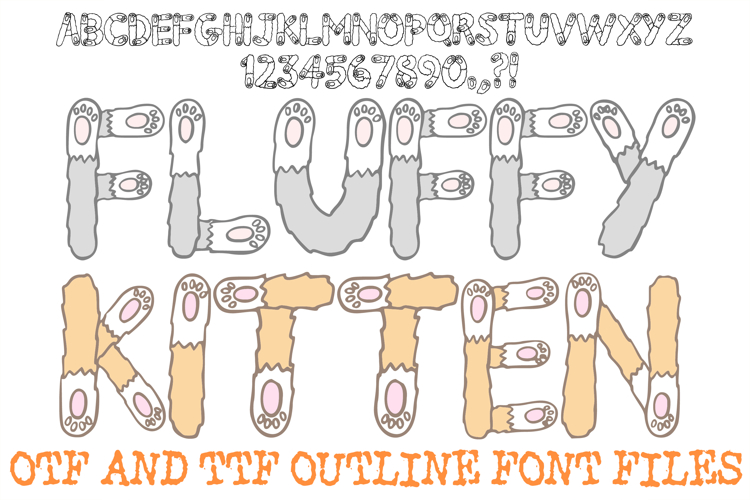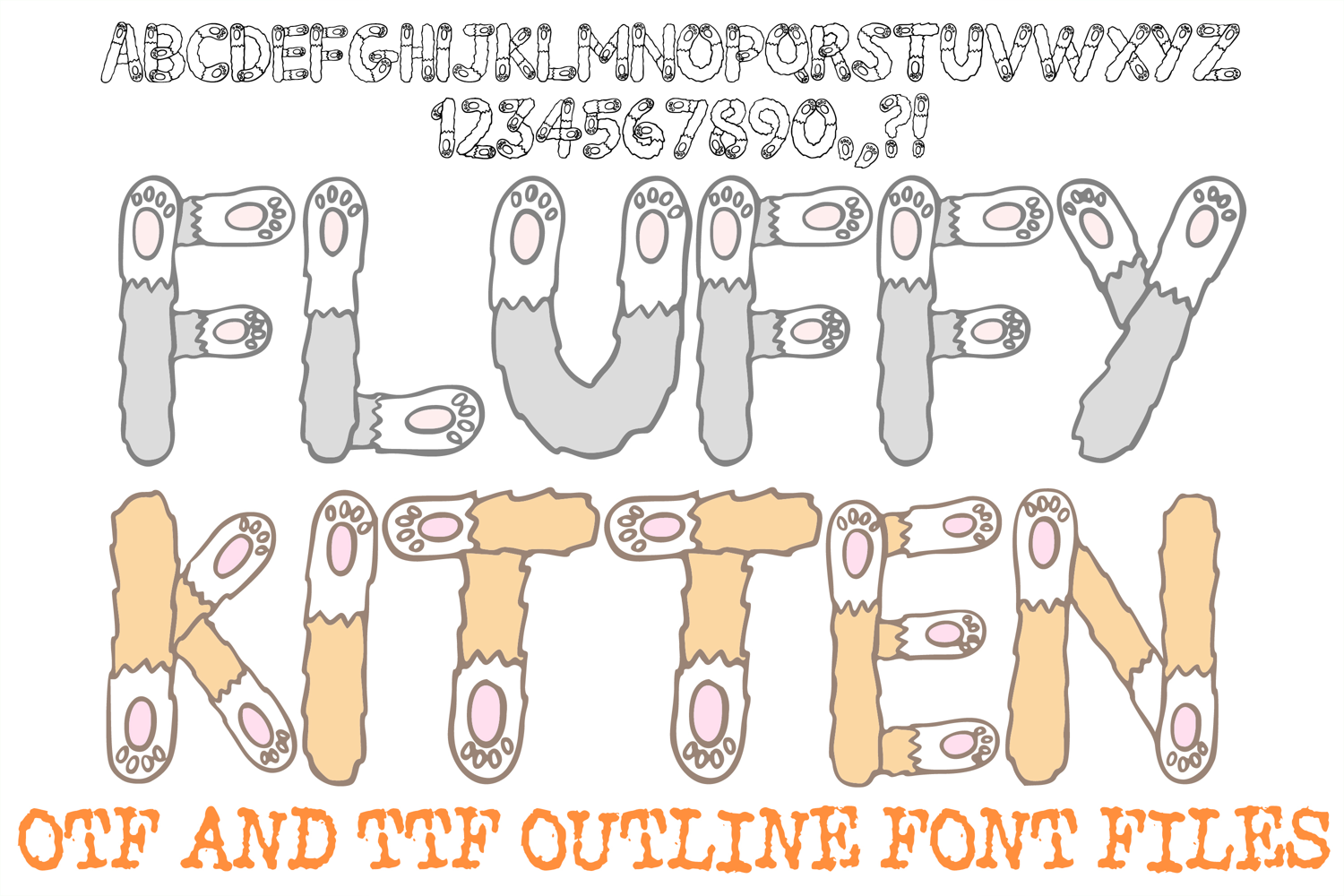
Fluffy Kitten Alphabet Lettering Font Paws ABC OTF TTF
Infuse your creative projects with an abundance of cozy pet charm and absolute sweetness using the Fluffy Kitten Font. This exceptionally cute, hand-drawn display typeface features thick, rounded letterforms uniquely shaped out of fuzzy cat legs and soft paws. The defining highlights of this design are the delicate tufts of fur texture along the edges and the tiny, squishy pink "toe beans" seamlessly integrated into each uppercase letter, number, and punctuation mark. It stands as the ultimate font choice for any layout that needs a warm, playful, and pet-loving aesthetic.
Ideal For Creative Merch & DIY
Custom Merchandise: Design adorable typography for cat lovers' t-shirts, cozy animal hoodies, and canvas tote bags.
Die-Cut Stickers: Create irresistible, playful vinyl decals for pet journals, water bottles, planner layouts, and laptop covers.
Theme Stationery: Perfect for pet adoption flyers, kitten-themed birthday party invitations, veterinary clinic signs, or sweet greeting cards.
Boutique Branding: Elevate logos, business cards, and social media packaging for pet groomers, cat cafes, artisan treat bakeries, or handmade pet toy shops.